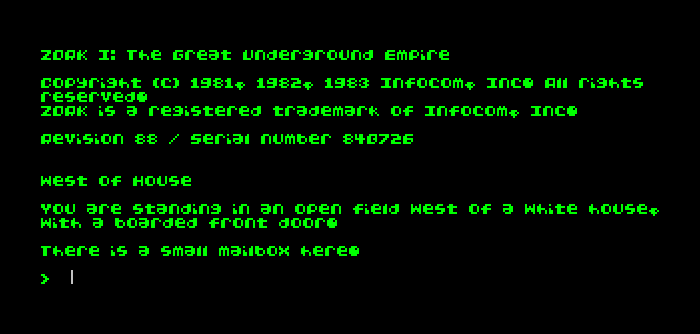
Portable Vengeance Font
Original size: 7.5pt (use multiples of this value for pixel perfection)
A stylized 5x5 pixel font. Supports several languages! I designed it to have a slightly balloon-esque, oldschool arcade look. Feel free to use it in your games or whatever else :D